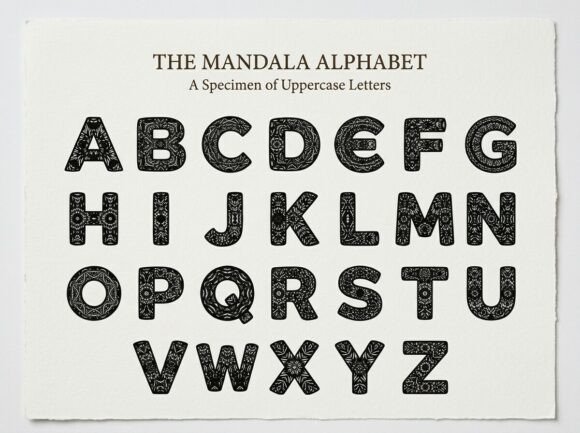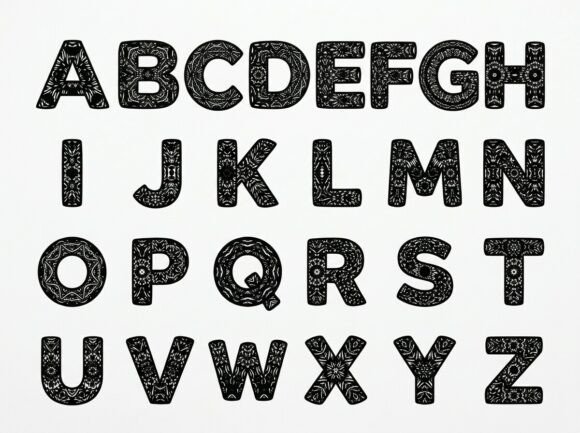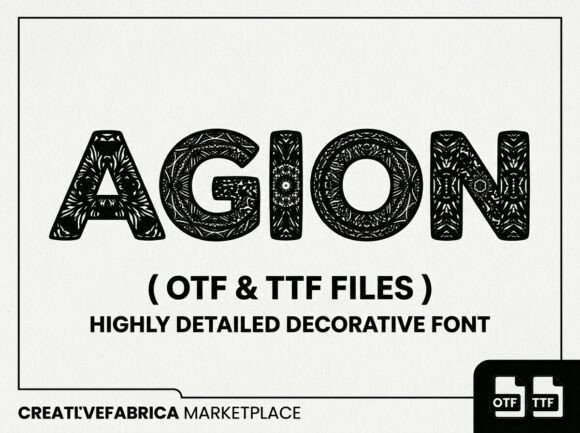
Introduction to Agion Font
“Elevate your creative projects with a decorative display font designed to be the centerpiece of any layout.
With its distinct artistic elements and strong character, it is perfect for creators who want to break away from the ordinary From bold headlines to creative branding and packaging delivers a high-end, professional aesthetic without compromising on personality.
Agion Font offers exceptional quality and versatility, making it a valuable addition to your design toolkit. Whether you’re creating for personal projects or commercial use, Agion Font delivers professional results.